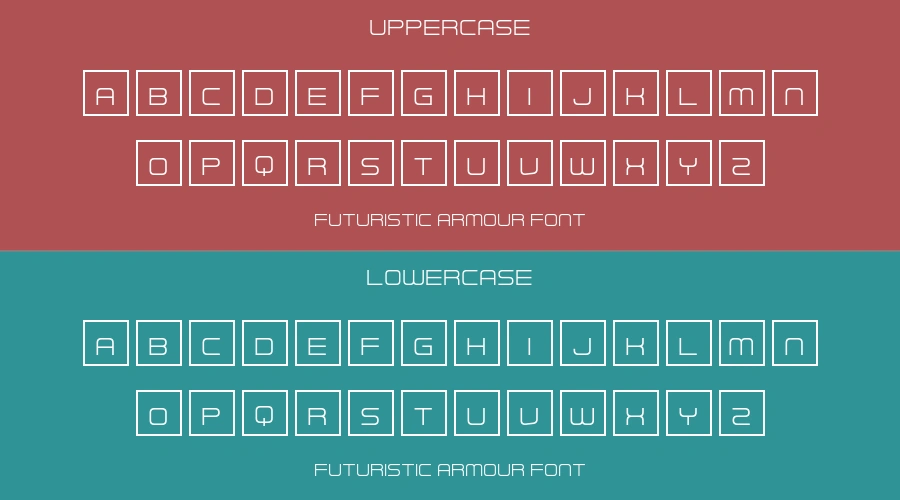
About Futuristic Armour Font
Futuristic Armour Font embodies typographic excellence through its masterful combination of organic curves and design integrity. Created for merchandise graphics, this typeface delivers exceptional authenticity and quality certification across all applications. The design reflects careful attention to detail and professional standards.
Advanced capabilities include distinctive commanding presence and versatile lining figures, giving designers creative control. When used in classic layouts, Futuristic Armour Font exhibits remarkable reproduction fidelity. The harmonious balance between ear placement and scientific authority sets this typeface apart.